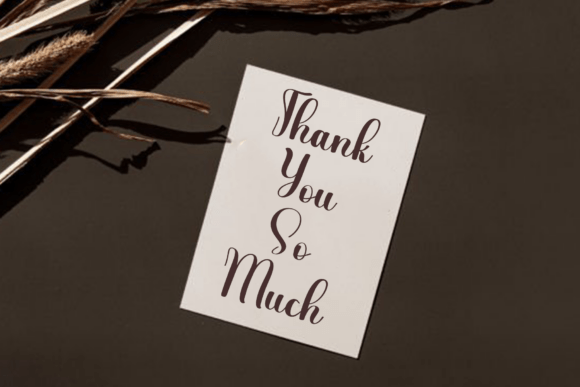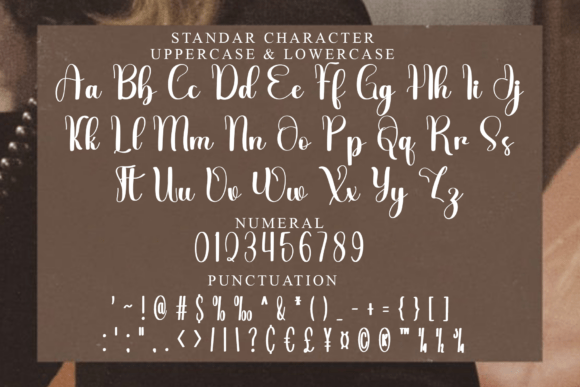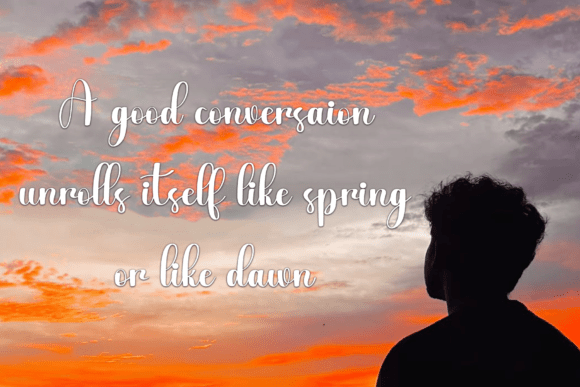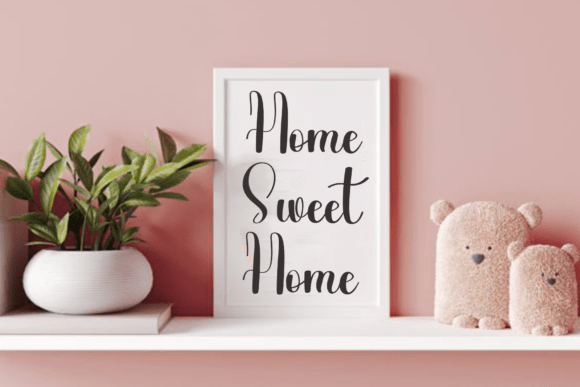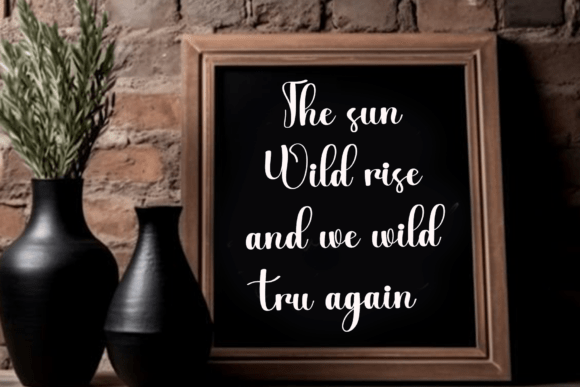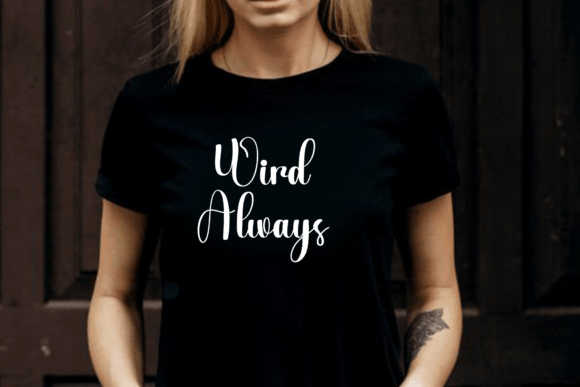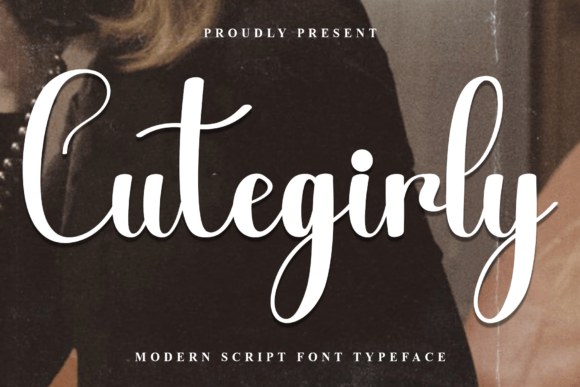
Introducing Cutegirly Font: The Ultimate Holiday Typeface
Are you looking for a font that embodies the spirit of the holiday season? Look no further than Cutegirly Font, a festive and merry typeface that adds a touch of enchantment to your designs. With its decorative elements and whimsical flair, this font is perfect for greeting cards, gift tags, and holiday-themed projects.
Cutegirly Font is a beautifully crafted typeface that captures the essence of the holiday season. Its decorative elements and whimsical flair make it perfect for adding a touch of magic to your designs. Whether you’re creating greeting cards, gift tags, or holiday-themed projects, this font is sure to bring a cheerful and nostalgic ambiance to your words.
Cutegirly Font is a versatile typeface that is perfect for designers and crafters alike. Its festive and merry design makes it ideal for holiday-themed projects, while its decorative elements and whimsical flair make it perfect for adding a touch of elegance to your designs. Whether you’re creating digital or physical products, this font is sure to make your designs stand out.
One of the best features of Cutegirly Font is that it is PUA encoded, which means you can access all of the amazing glyphs and ligatures with ease. This makes it easy to add decorative elements and special characters to your designs, giving them a unique and personalized touch.
Use Cutegirly Font for:
• Greeting cards: Create beautiful and festive greeting cards for the holiday season with Cutegirly Font.
• Gift tags: Add a touch of elegance to your gift tags with this beautiful and decorative typeface.
• Holiday-themed projects: Perfect for creating holiday-themed projects such as invitations, flyers, and brochures.
• Digital products: Use Cutegirly Font to create digital products such as printable art, planners, and journals.
Why Choose Cutegirly Font?
There are many reasons why you should choose Cutegirly Font for your holiday-themed projects. Here are just a few:
• Festive and merry design: Cutegirly Font has a festive and merry design that captures the spirit of the holiday season.
• Decorative elements: The font features decorative elements and whimsical flair that add a touch of elegance to your designs.
• PUA encoded: The font is PUA encoded, making it easy to access all of the amazing glyphs and ligatures.
• Versatile: Cutegirly Font is a versatile typeface that can be used for a variety of projects, from digital products to physical products.
Tips for Using Cutegirly Font
Here are a few tips for using Cutegirly Font in your designs:
• Experiment with different sizes and colors: Try out different sizes and colors to see what works best for your design.
• Mix and match with other fonts: Cutegirly Font pairs well with other fonts, so feel free to mix and match to create a unique look.
• Use the glyphs and ligatures: Take advantage of the PUA encoding and use the glyphs and ligatures to add decorative elements to your design.